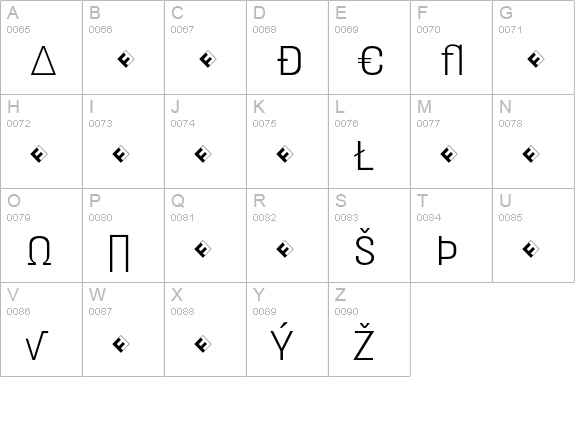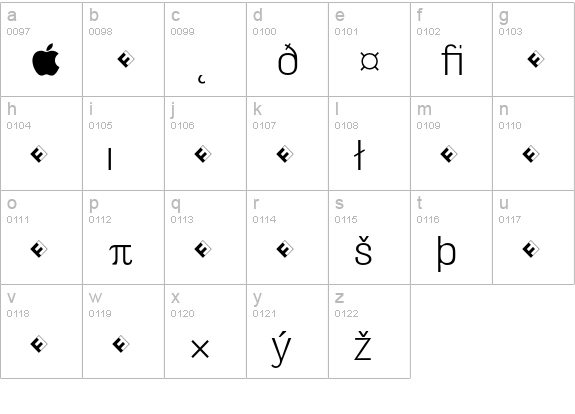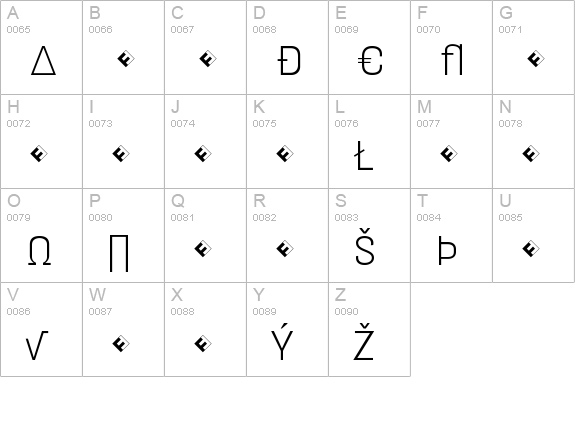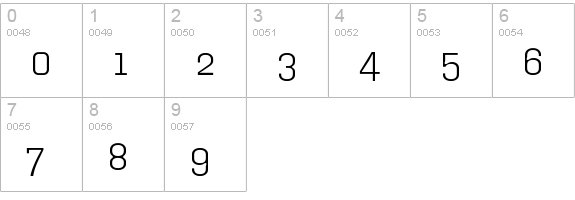
Introducing HydraText-LightExpert, a sleek and modern font designed to enhance readability and style in your projects. This versatile typeface offers a perfect balance of elegance and functionality, making it ideal for a wide range of design applications. With its clean lines and sophisticated curves, HydraText-LightExpert exudes a sense of professionalism and sophistication. This font is the perfect choice for branding, editorial design, web design, and more. Its light weight and expertly crafted letterforms ensure that your text stands out and makes a lasting impression on your audience. Whether you are creating a logo, designing a website, or crafting a brochure, HydraText-LightExpert is sure to elevate your work to the next level. Best of all, HydraText-LightExpert is available for free download at FontsMarket.com. Simply visit the website to get your hands on this beautiful font and start using it in your projects today. Don't miss out on the opportunity to add HydraText-LightExpert to your font collection and take your designs to new heights of sophistication and style.